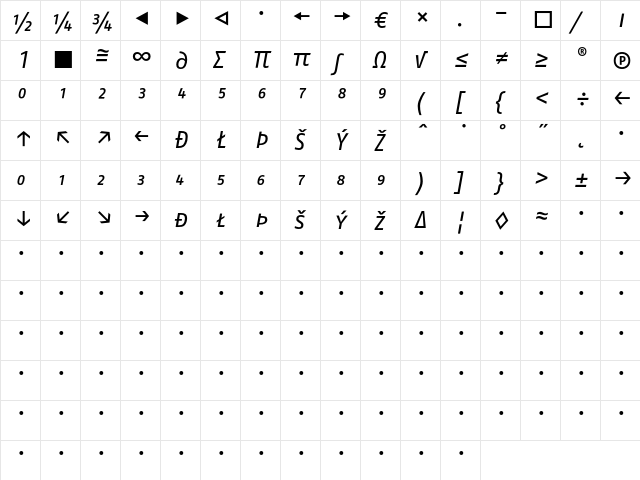
FagoNoRegular ItalicCapsExp Font Preview
FagoNoRegular ItalicCapsExp
Design Context for FagoNoRegular Typeface
FagoNoRegular is a composed and adaptable typeface that performs quietly and consistently across a wide range of design contexts. The slanted form adds forward momentum and visual energy.
Pro Tip: Try FagoNoRegular for annotation and caption copy alongside an upright companion — the contrast in angle creates a dynamic but ordered typographic system.